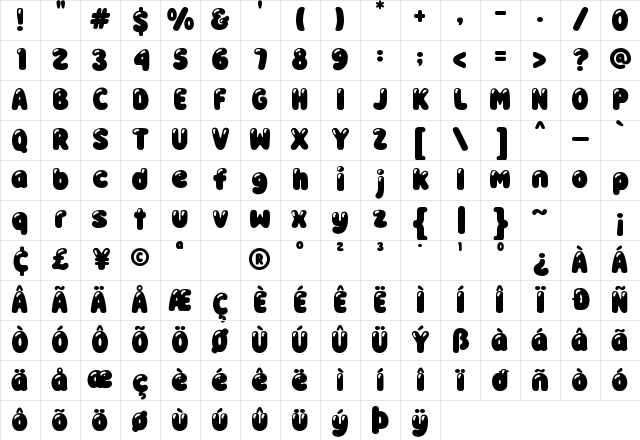
Shine Bubble Deco Regular
Foundry: HansCo Studio
Designer: Burhan Afif
Design Context for Shine Bubble Deco
Shine Bubble Deco has an approachable, lighthearted character - its loose, expressive forms are well-suited to children's content, casual branding, and fun-first design.
Font Pairing: Pairs well with a rounded or humanist sans for body copy, maintaining the friendly tone without relying on Shine Bubble Deco to carry extended reading.
Pro Tip: Use Shine Bubble Deco at larger display sizes where its expressive character can land. Pair with a clean, simple sans for body copy to maintain readability.